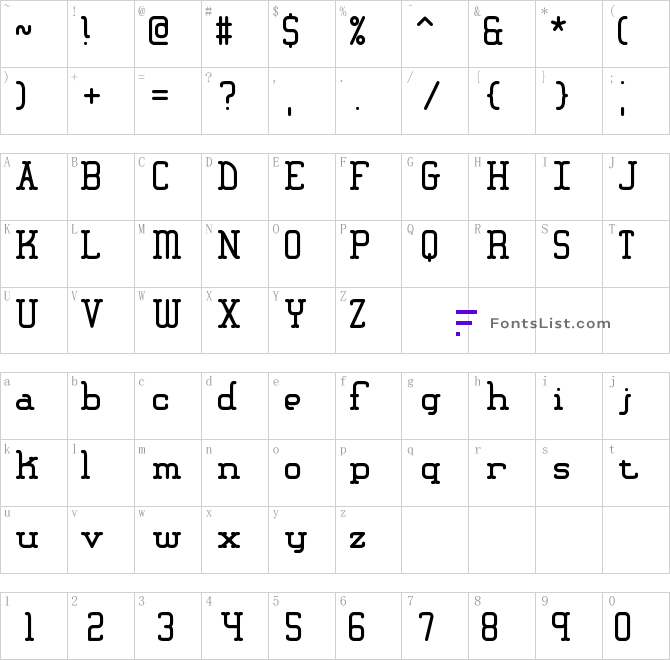
- Font Name:Amplitude BRK
Amplitude-BRK.ttf is a very beautiful artistic font, Amplitude-BRK.ttf is widely used in the design and printing of various books and pictures,Amplitude-BRK.ttf has a strong visual impact,Amplitude-BRK.ttf is a commonly used font in newspapers, magazines and books, and is used in posters, e-commerce Poster design, store design, logo design, font design and other fields.Amplitude-BRK.